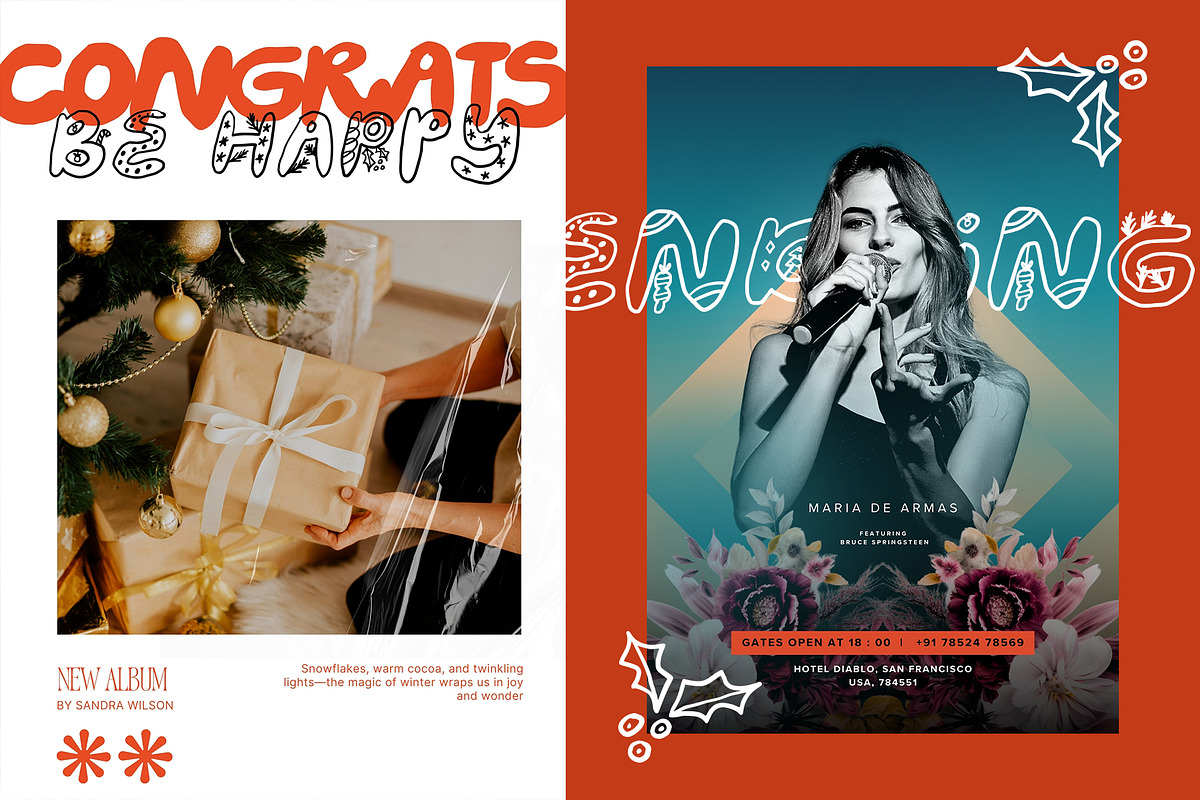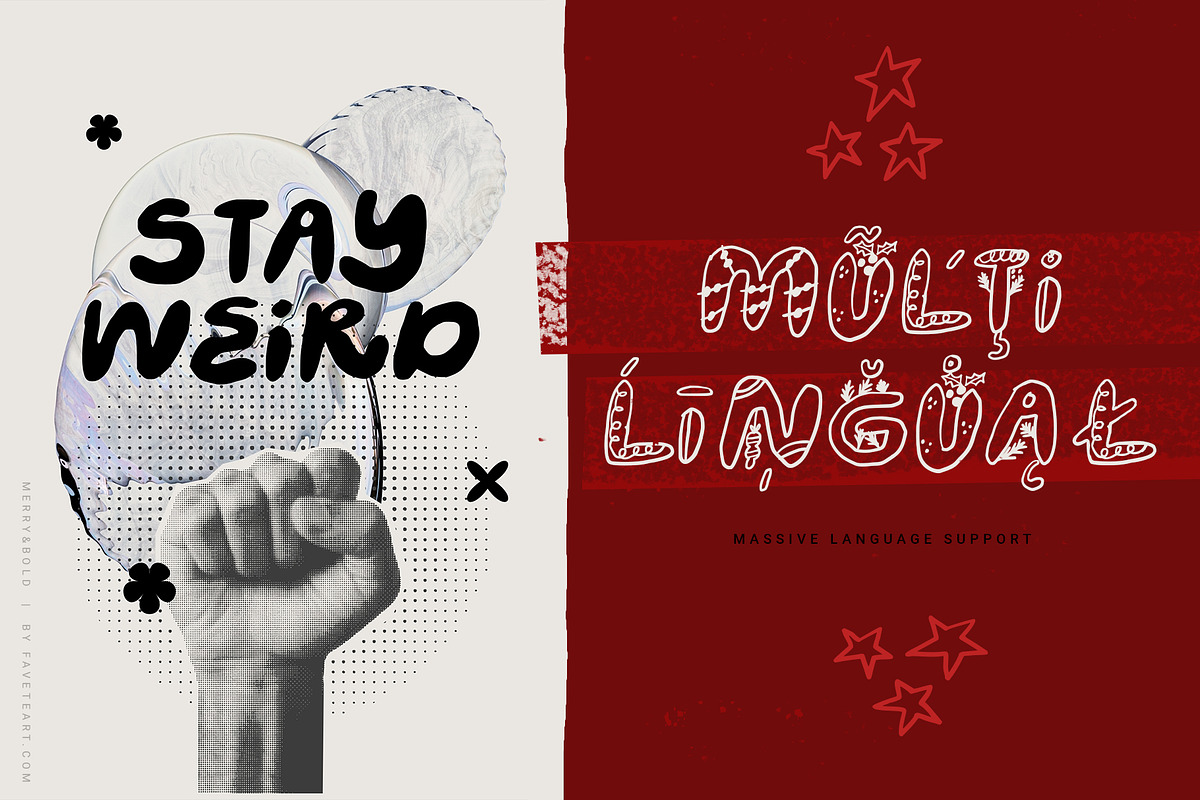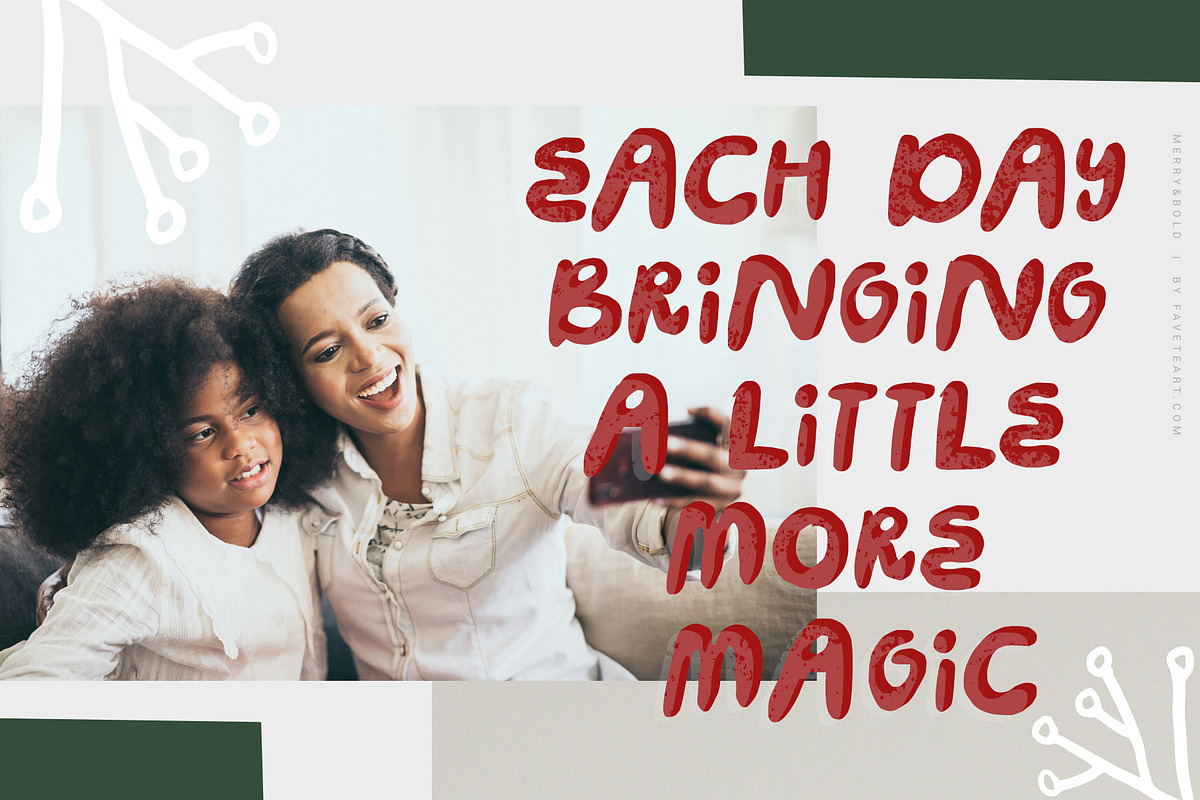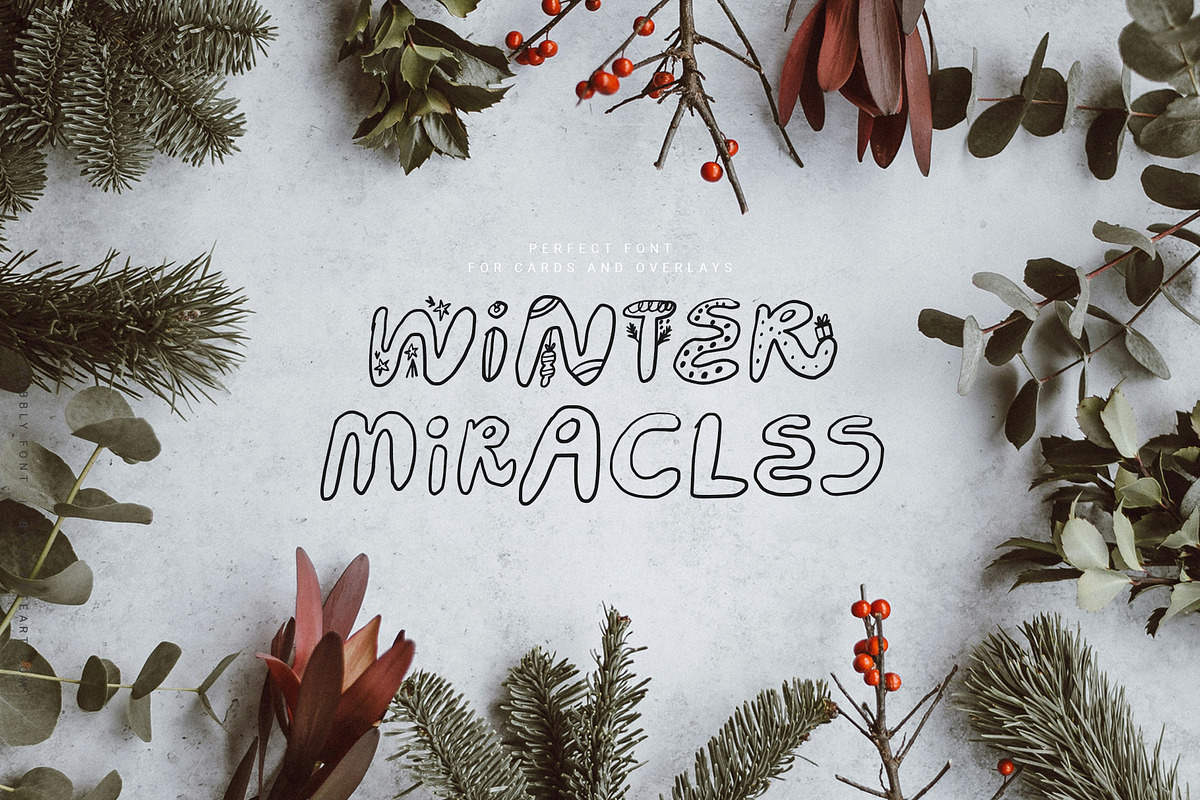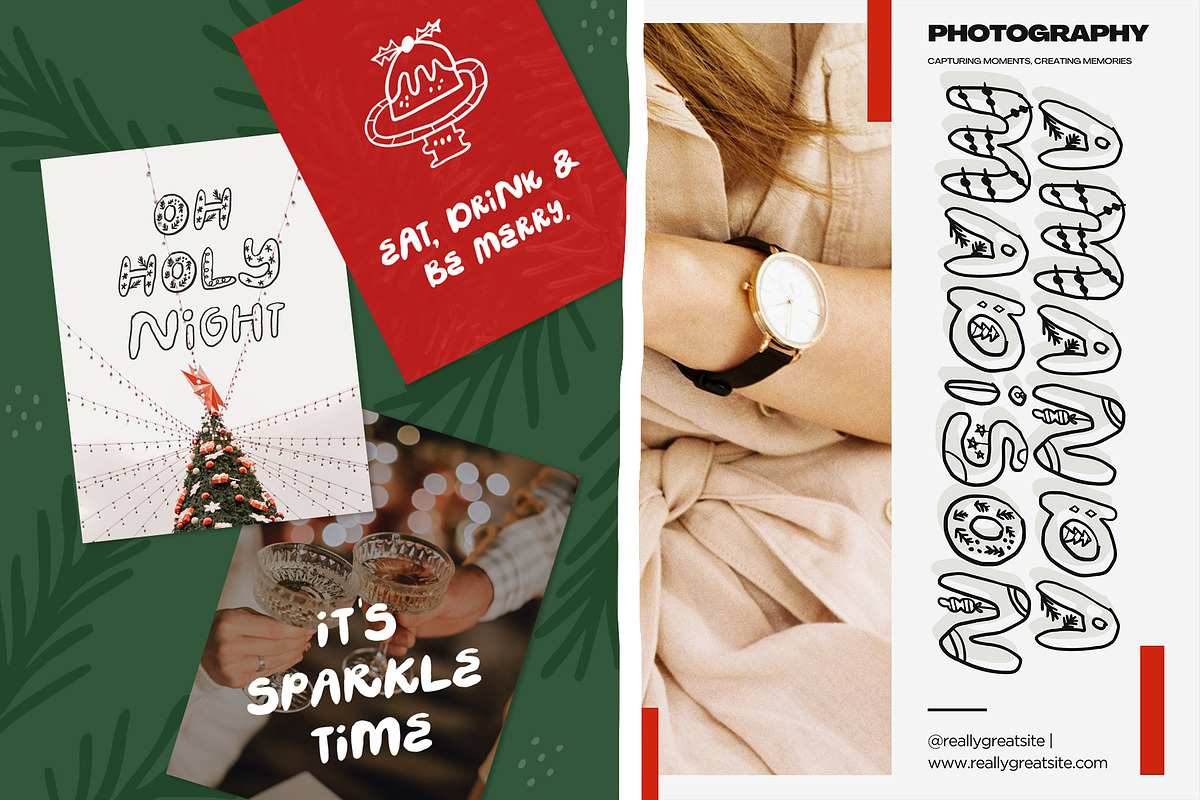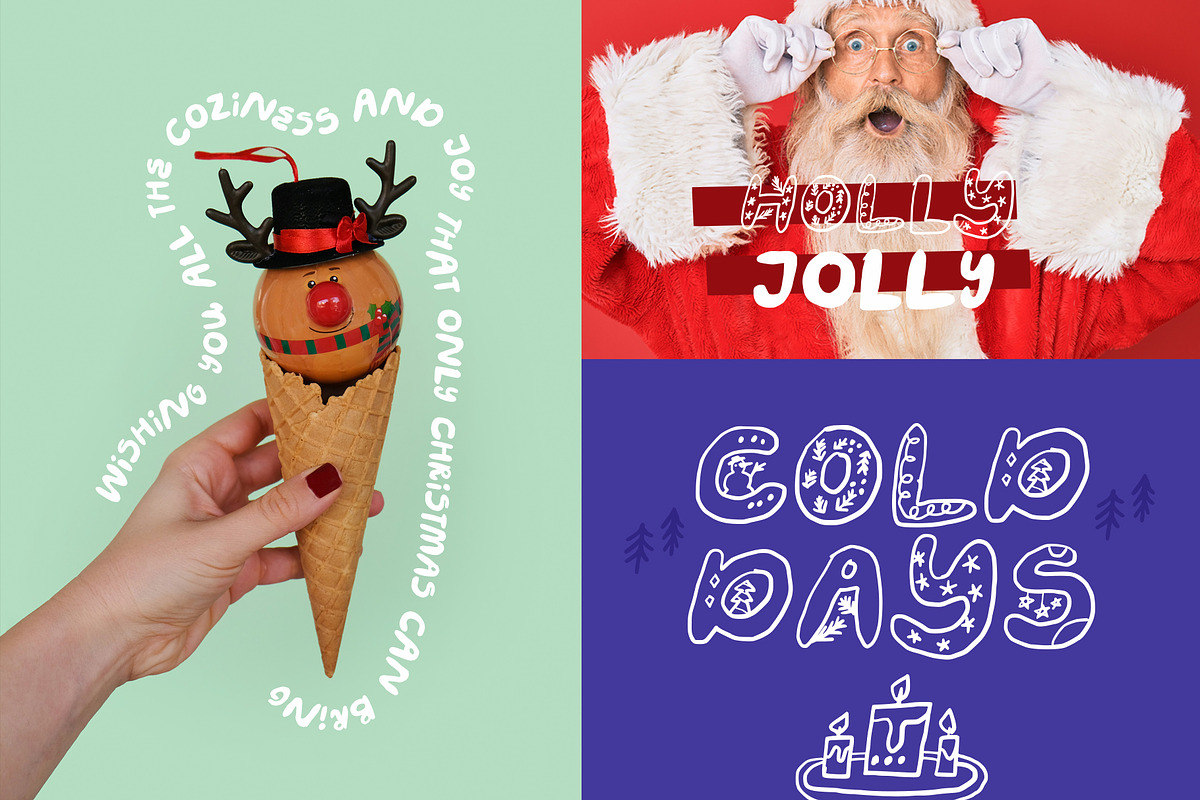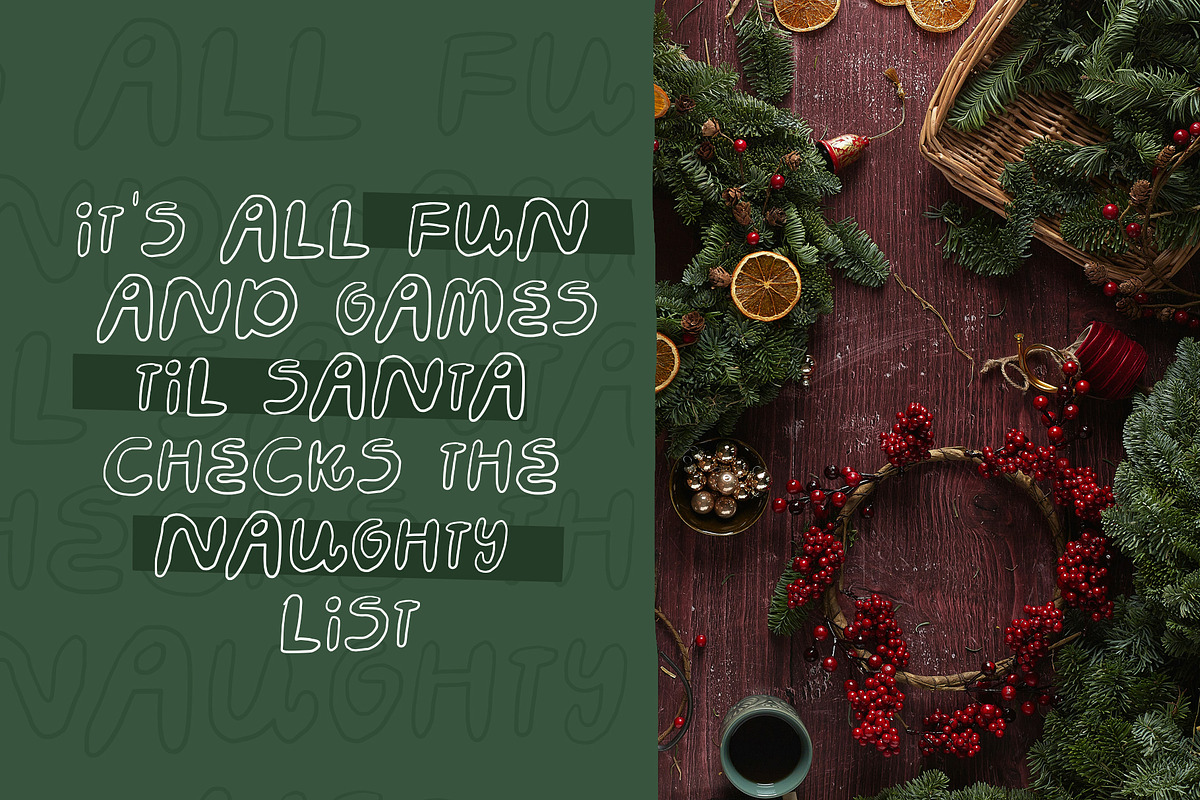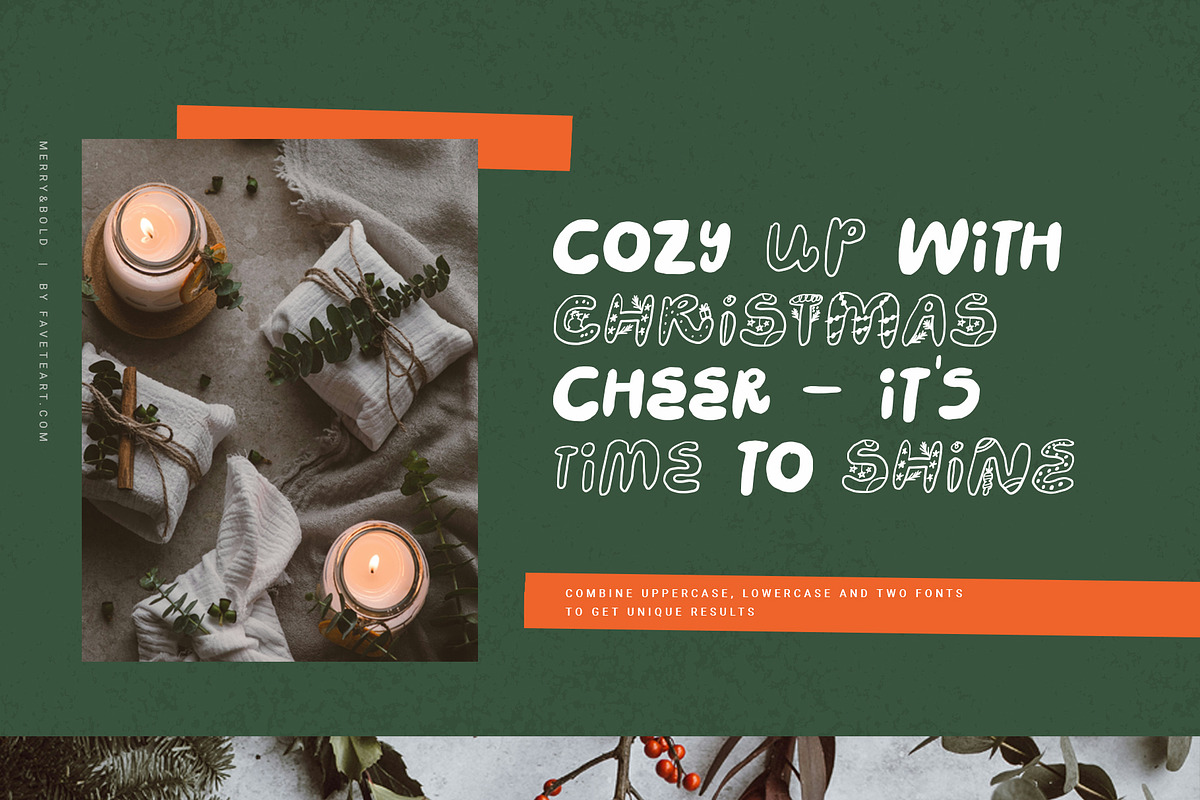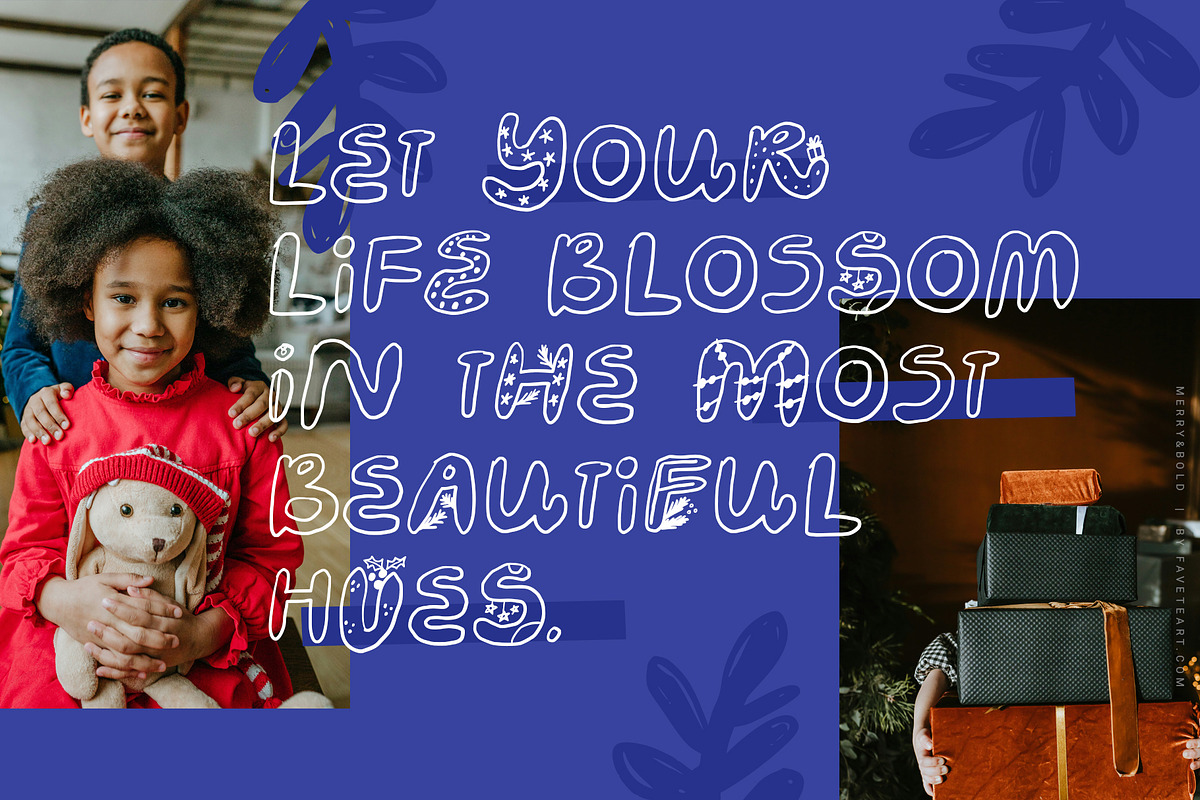
Merry&Bold | Hand drawn font duo
Merry&Bold is an uppercase font duo that was created for holiday season. Bold version of the font will look great on any designs, but Regular version (especially uppercase) will uplift any holiday-related designs and will make a statement. To help you create even more unique and interesting designs I included 135 hand drawn illustrations on winter / christmas theme. Enjoy! :)
Merry&Bold includes massive latin-based language support for most common European languages (just type something in the text box below and see the characters).